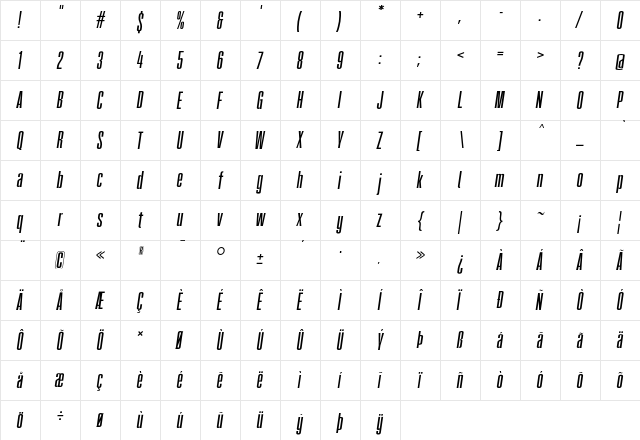
FatCow Italic
Design Context for FatCow Typeface
FatCow offers clean, dependable letterforms without strong stylistic allegiance, making it a practical choice for designers who need flexibility. The dynamic lean of this cut emphasises speed and emphasis in any layout.